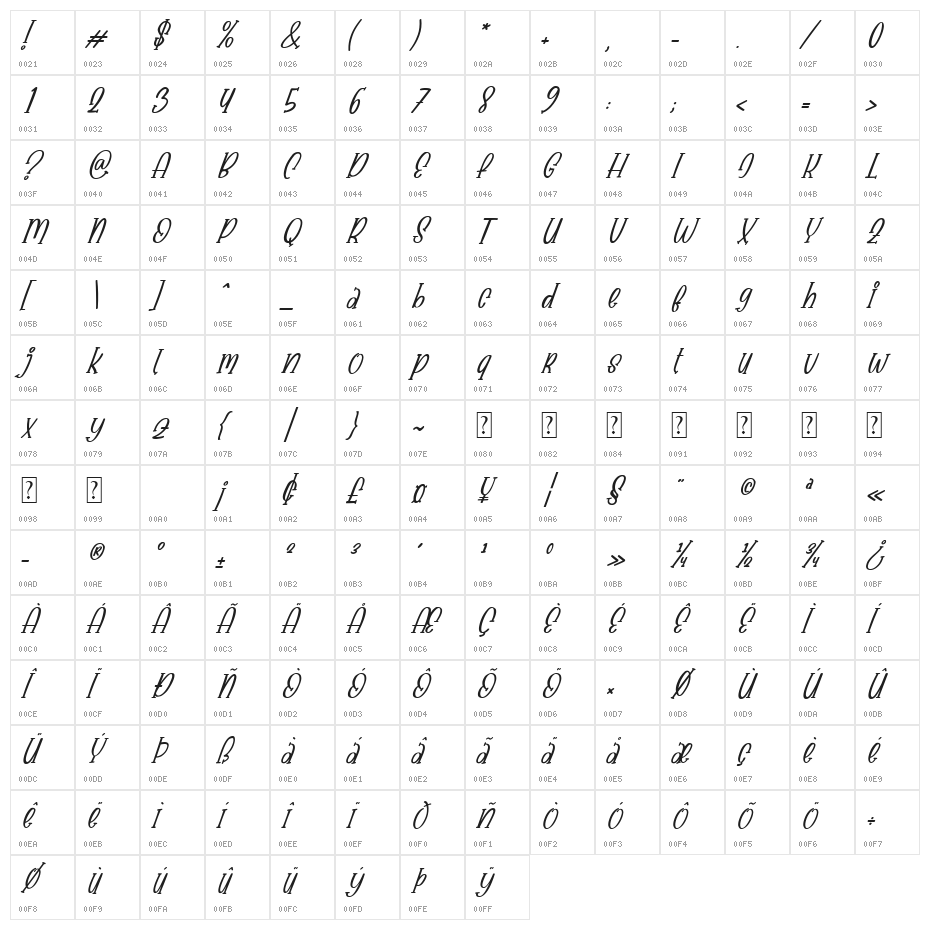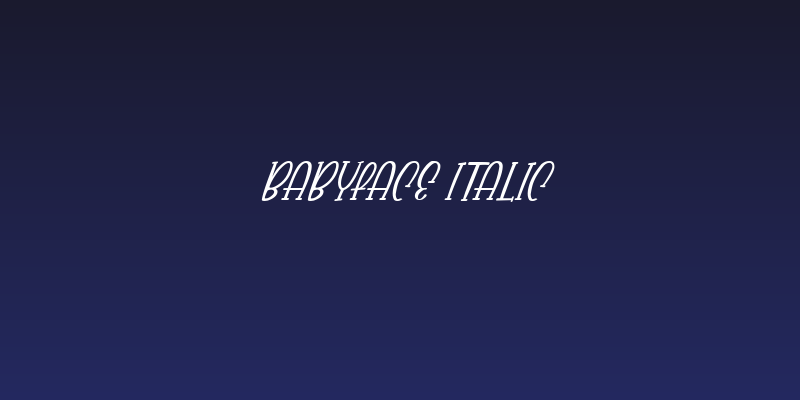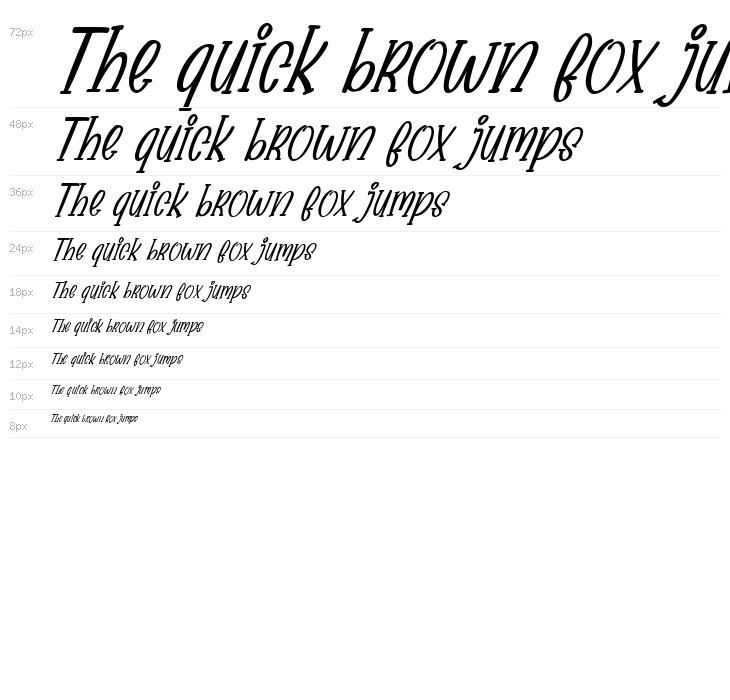
Babyface Italic Font
Babyface Italic Description
This font features a dynamic and flowing italic style, characterized by its elegant and cursive letterforms. The strokes are smooth and slightly slanted, giving it a sense of motion and fluidity. The uppercase letters are bold and prominent, while the lowercase letters maintain a consistent flow with distinctive loops and curves. The numerals are clear and well-defined, matching the overall aesthetic. Special characters are creatively integrated, maintaining the font's cohesive style. This font exudes a sense of sophistication and creativity, making it suitable for artistic and expressive projects.
| Proposed Projects | Ideal for wedding invitations, greeting cards, branding, and artistic projects that require a touch of elegance and creativity. |